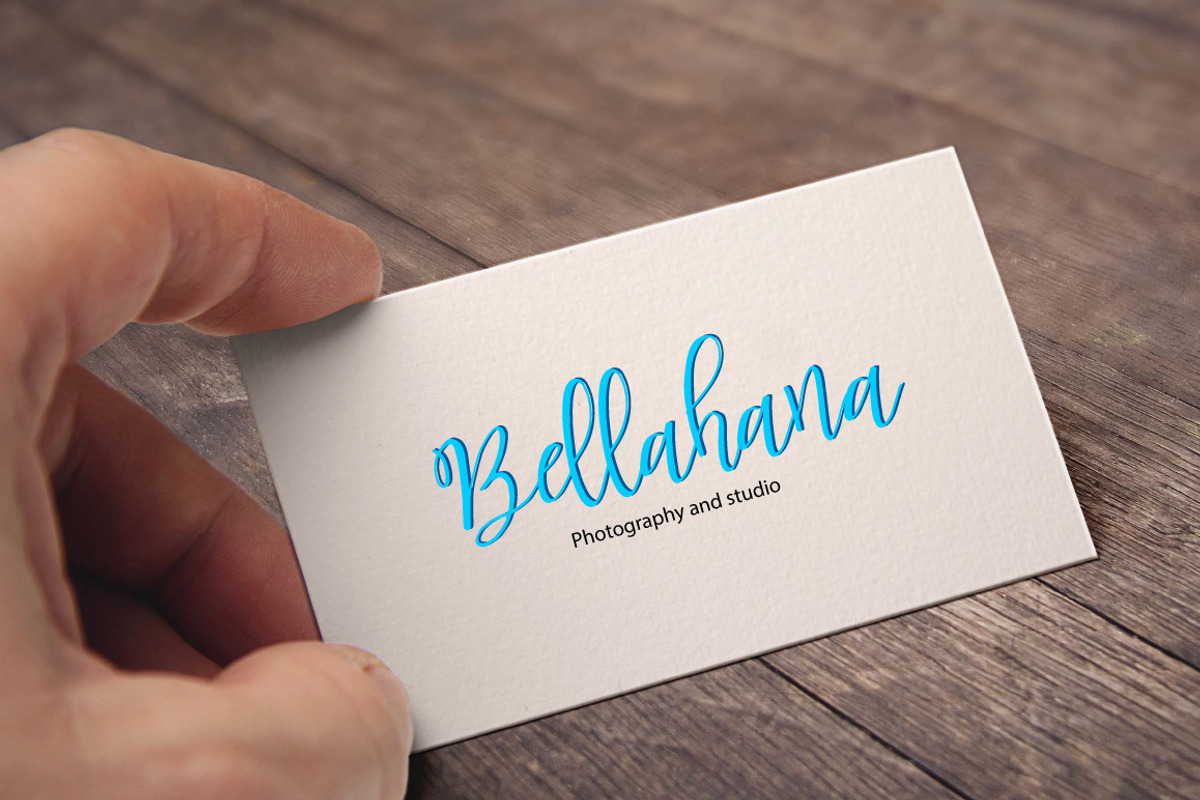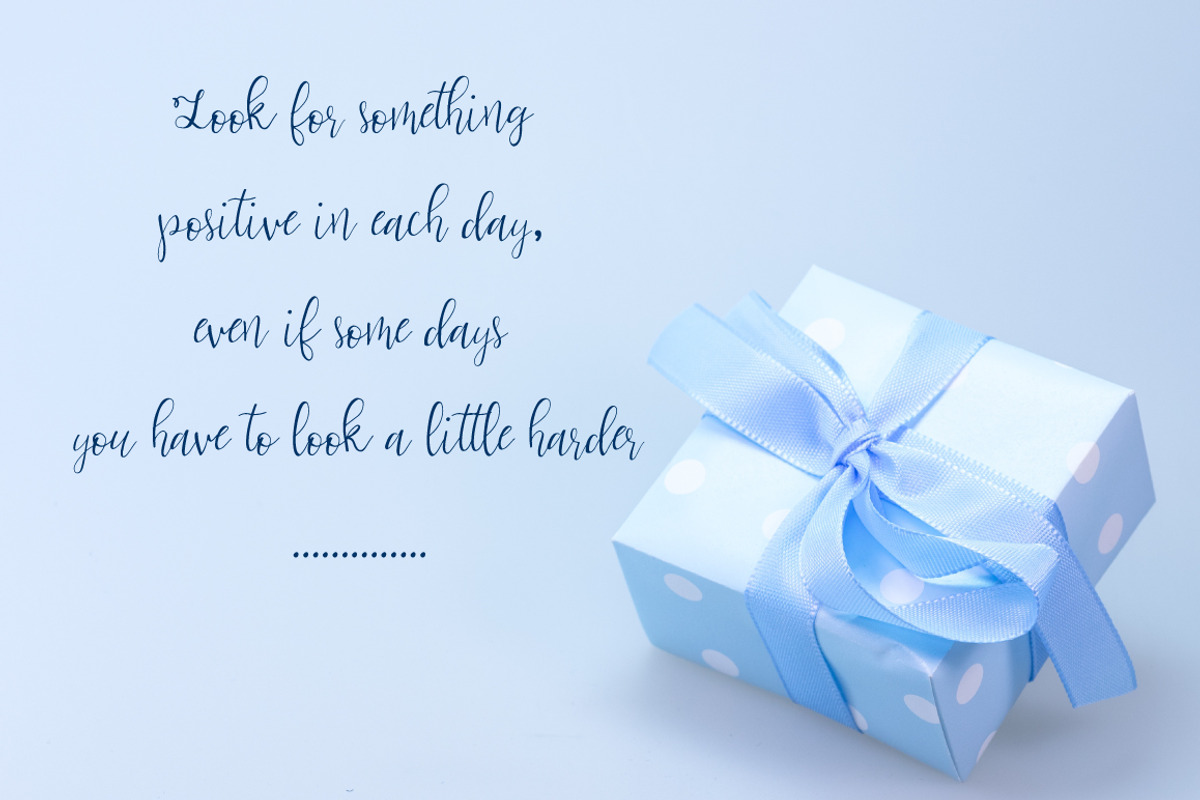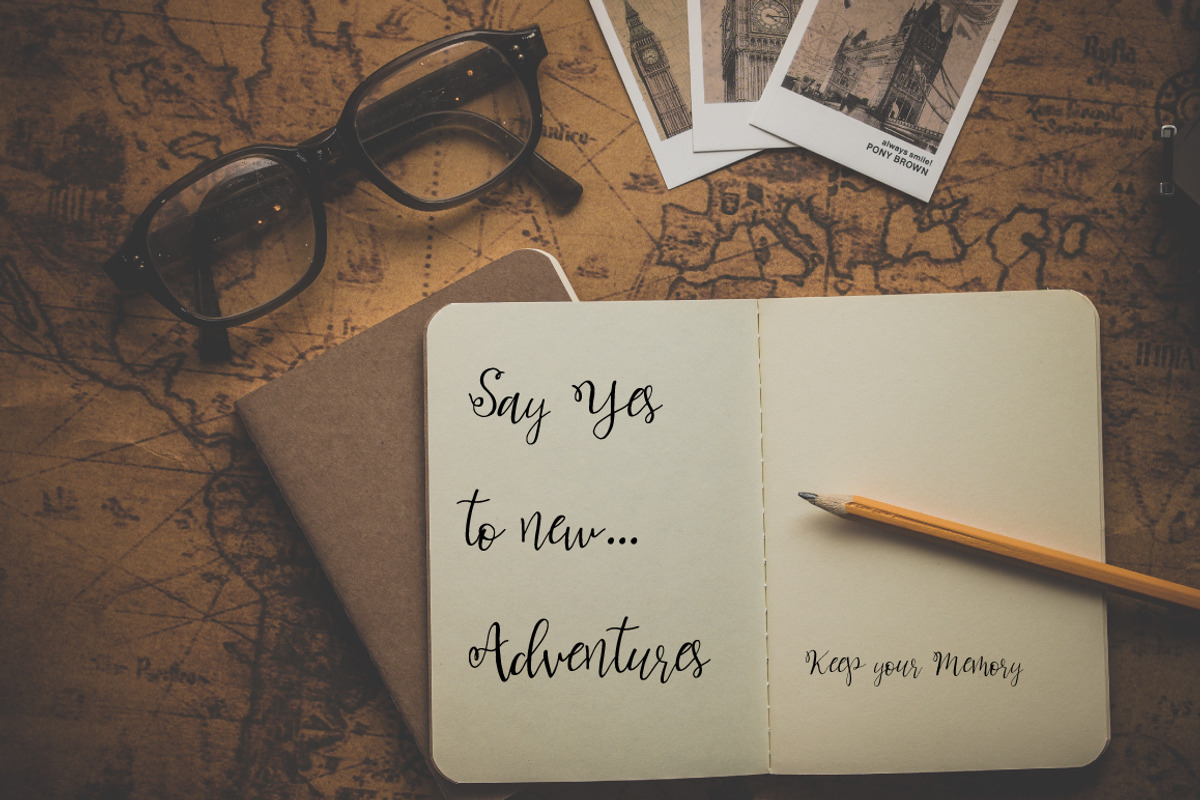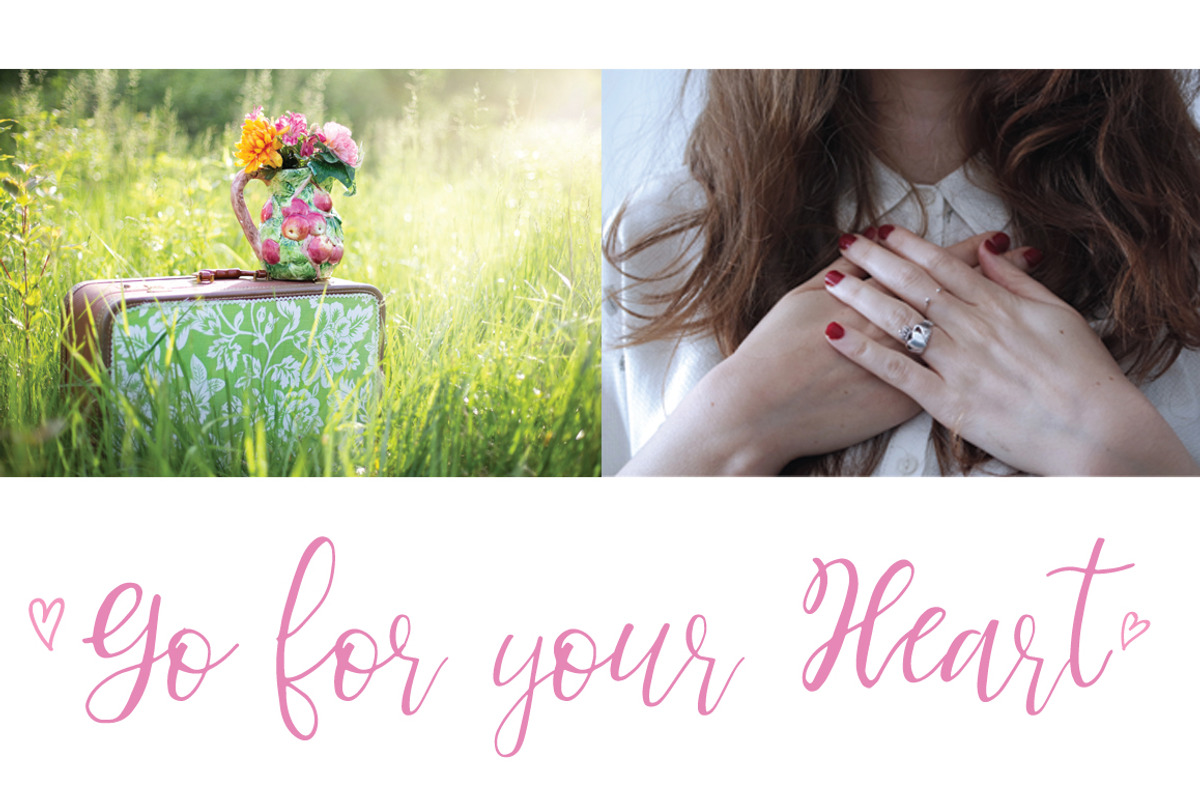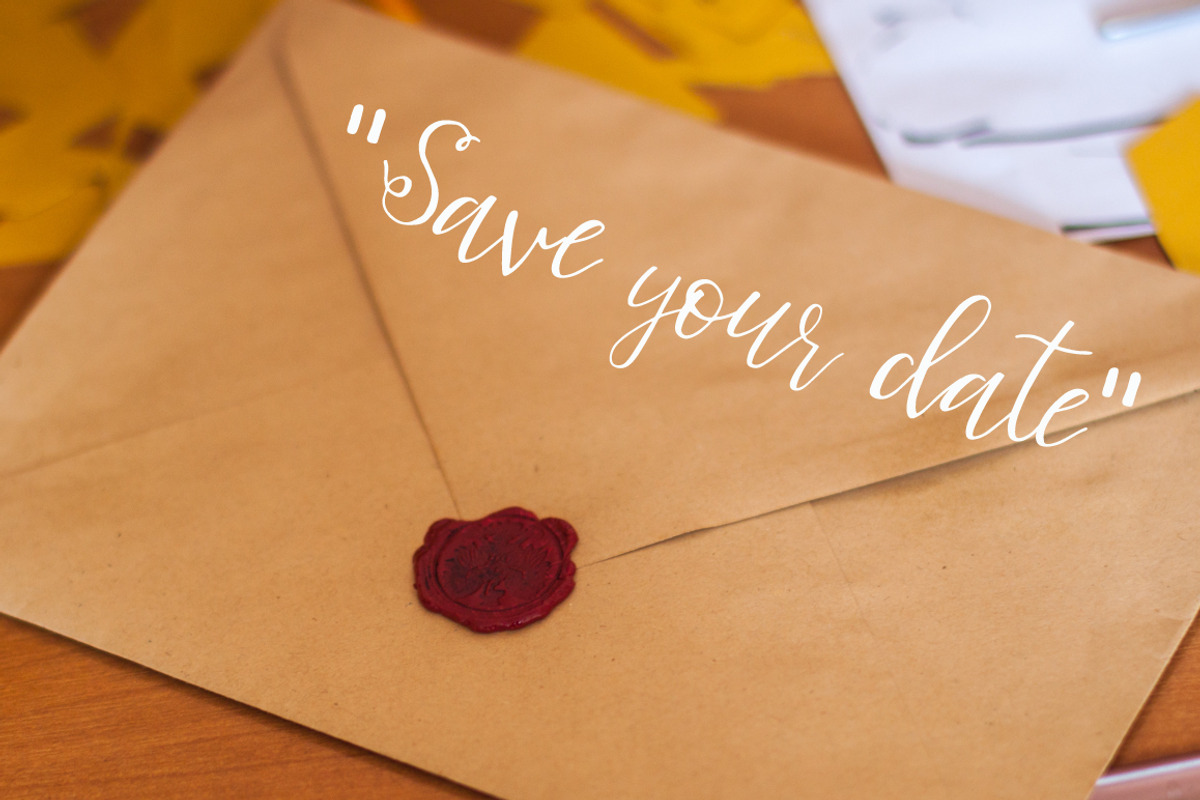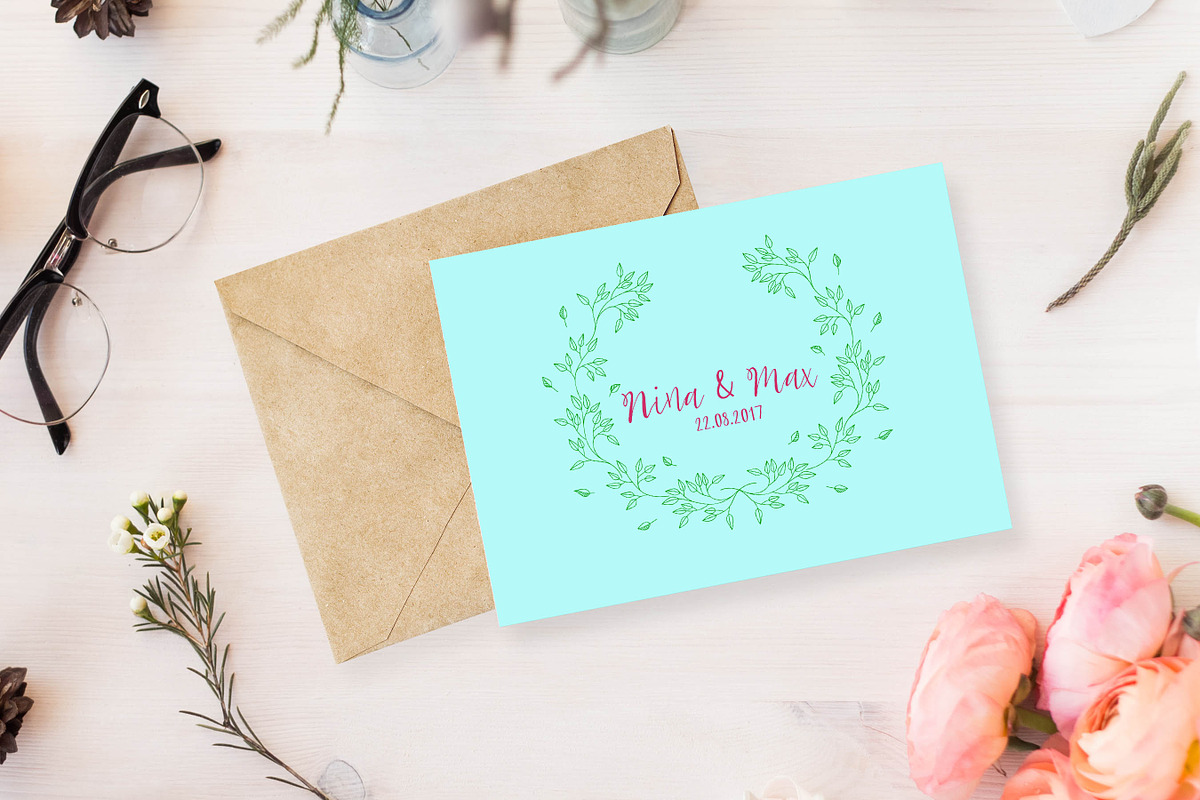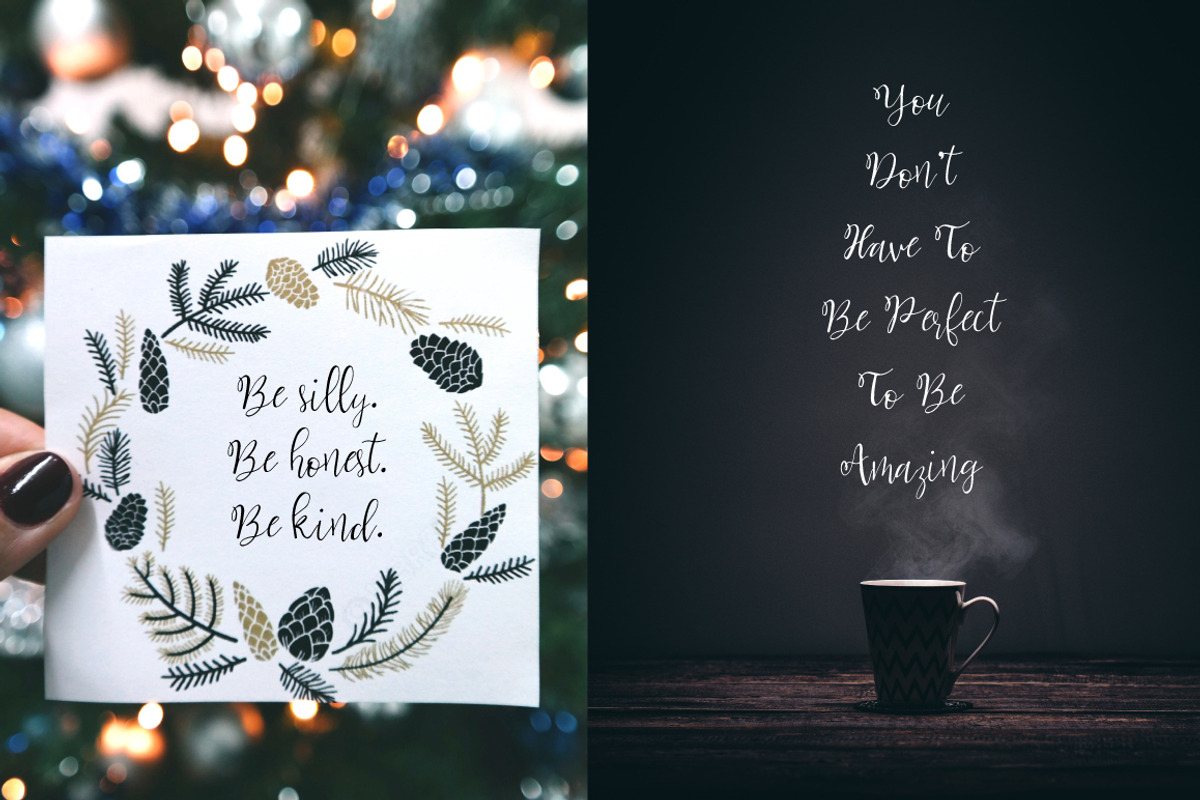
Bellahana Script Font
It's handwritten script font.
This font are perfect for wedding invitation or your blog. You can create a logo Or just use for your small business, book covers, stationery and more.
Why Bellahana Script Font is worth a look
Bellahana Script Font by Artstudio fits naturally into Branding, posters, packaging, typography.